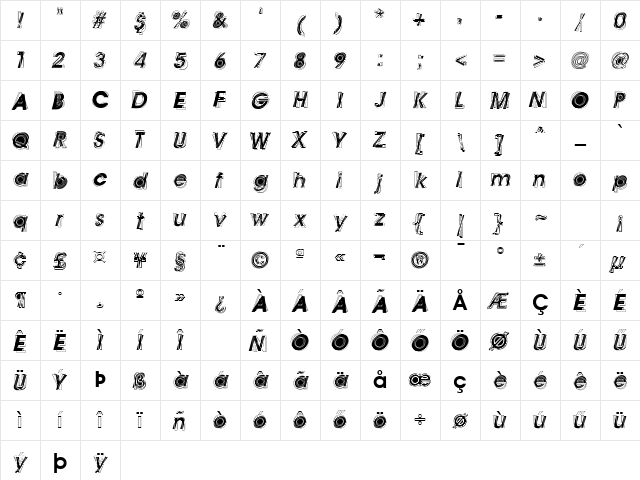
Astigma Hu Normal
Design Context for Astigma Hu
Astigma Hu is a composed and adaptable typeface that performs quietly and consistently across a wide range of design contexts.